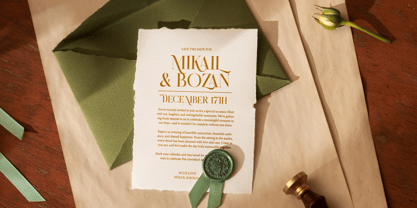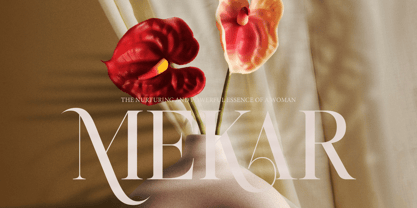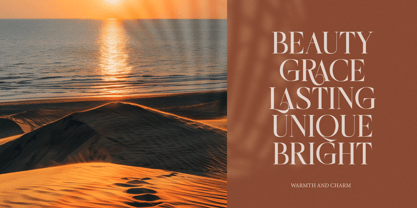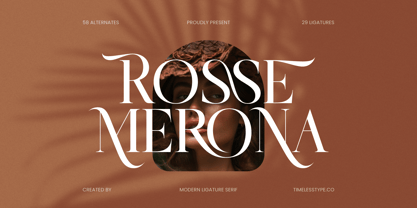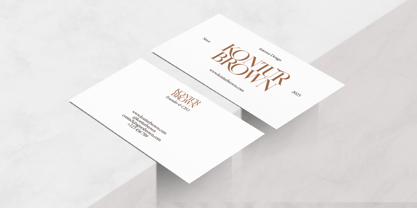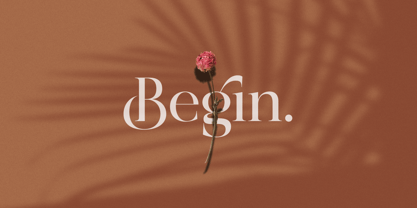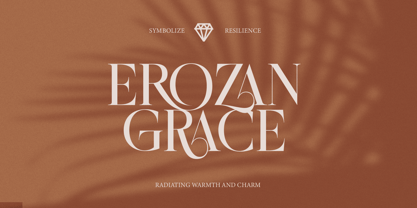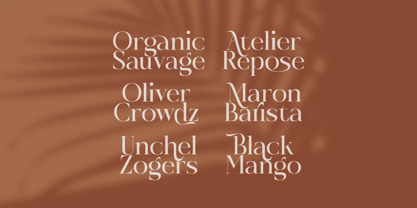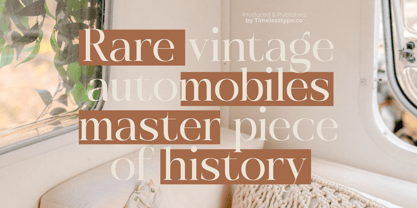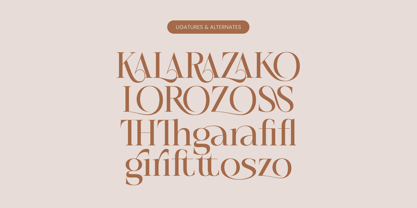
Rosse Merona
The Rosse Merona Font Family was designed by Heru Utama Putra and published by Timelesstype Studio. Rosse Merona contains 2 styles and family package options. More about this family
Rosse Merona - Modern Ligature Serif Font , from Timelesstype, Suitable for any projects such as: logos, branding projects, homeware designs, product packaging, mugs, quotes, posters, shopping bags, t-shirts, book covers, name card, invitation cards, greeting cards, label, photography, watermark, special events, and all your other luxury and beautiful projects that need a Luxury Serif taste.